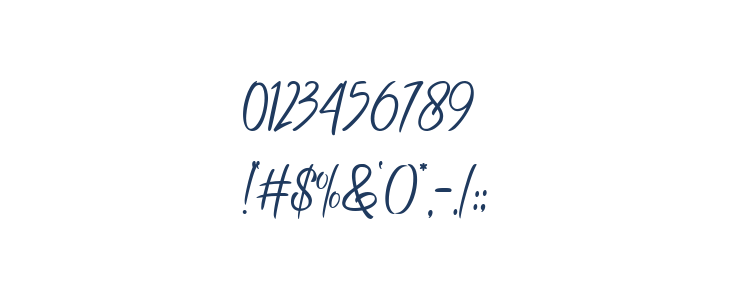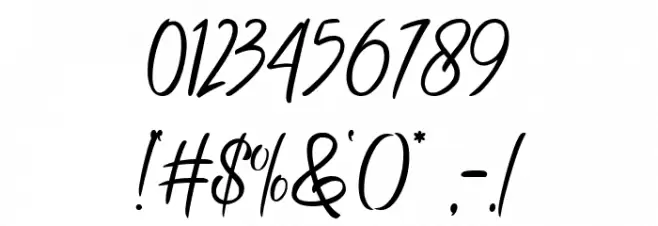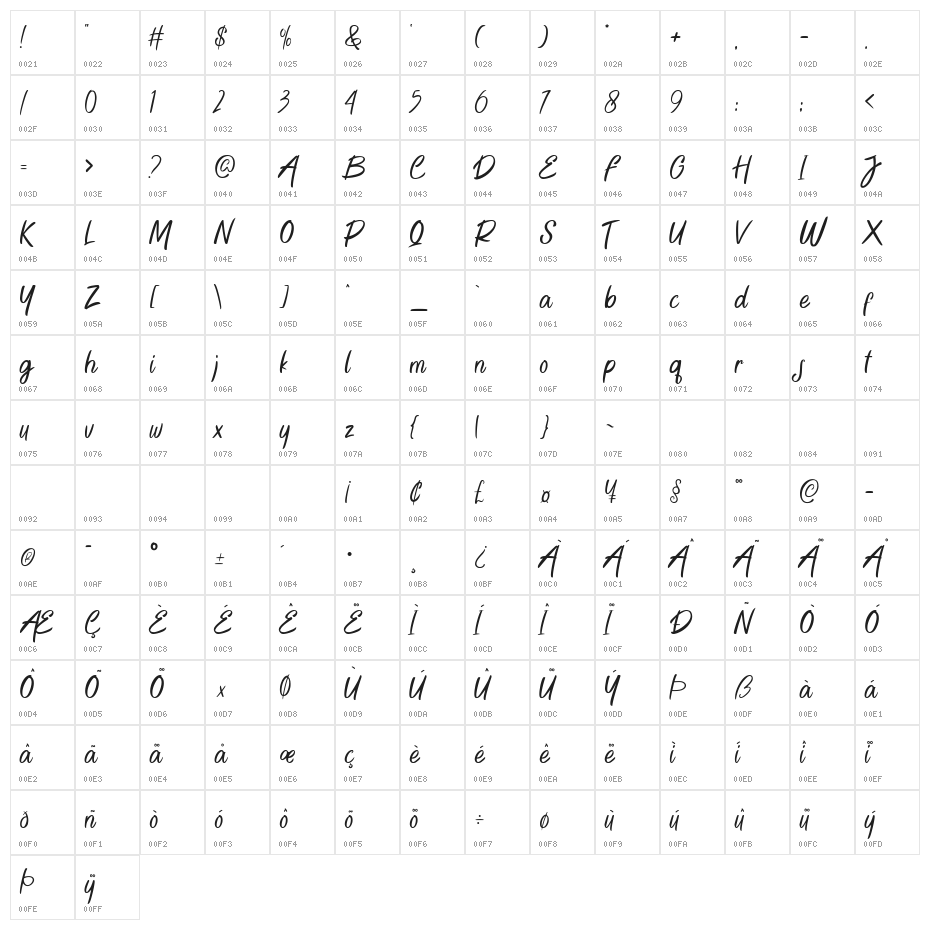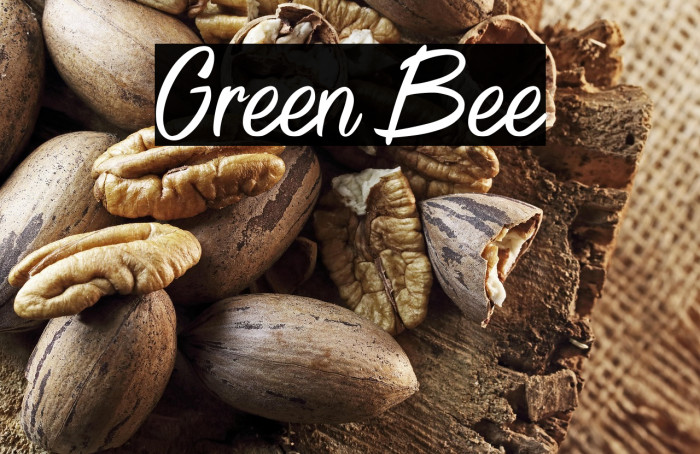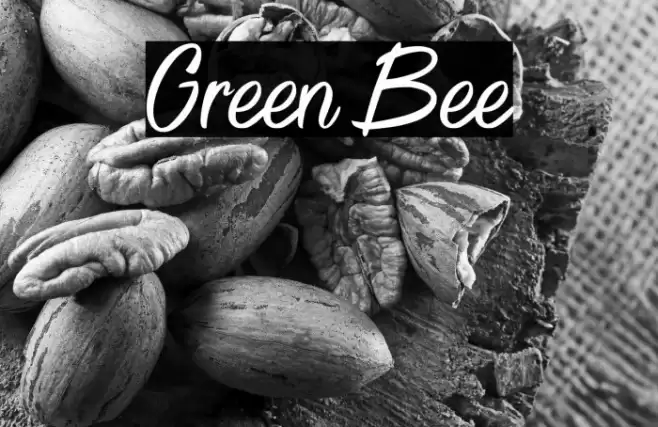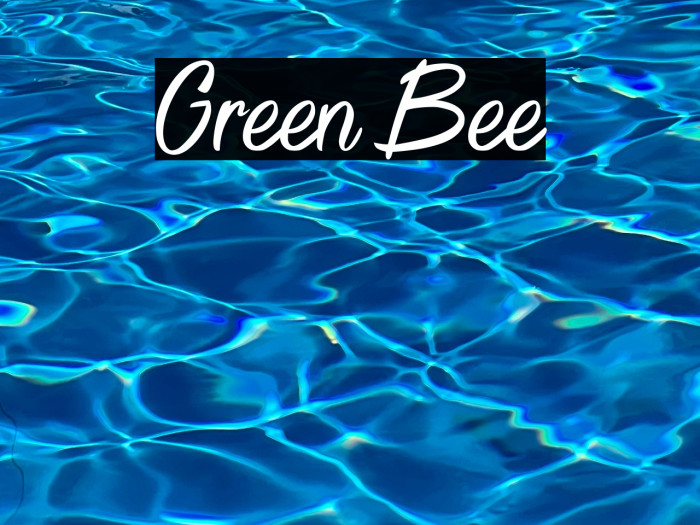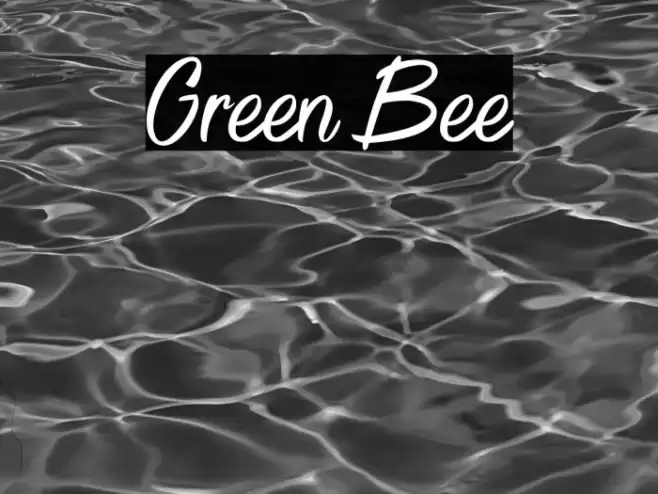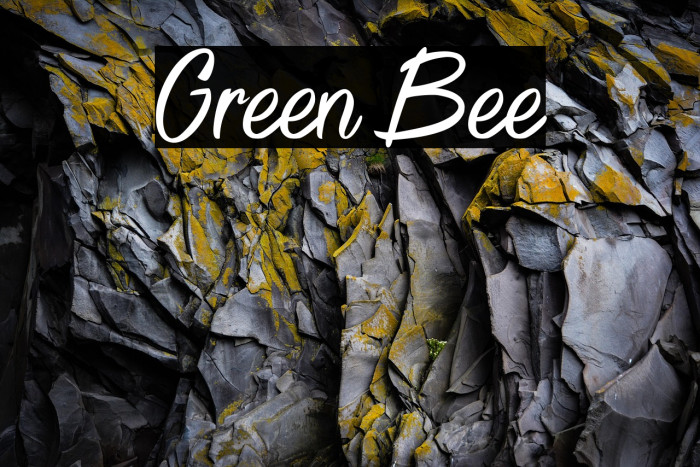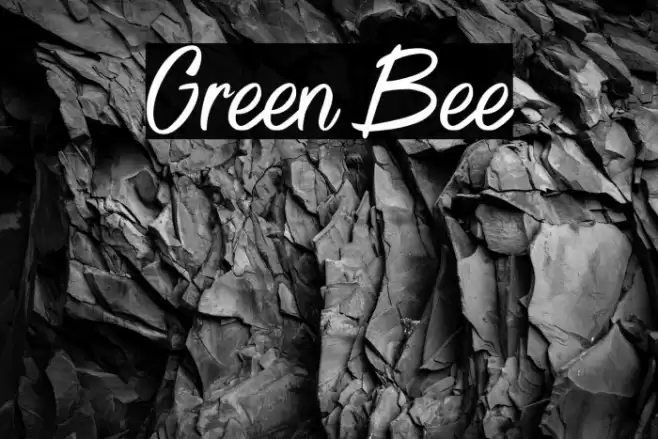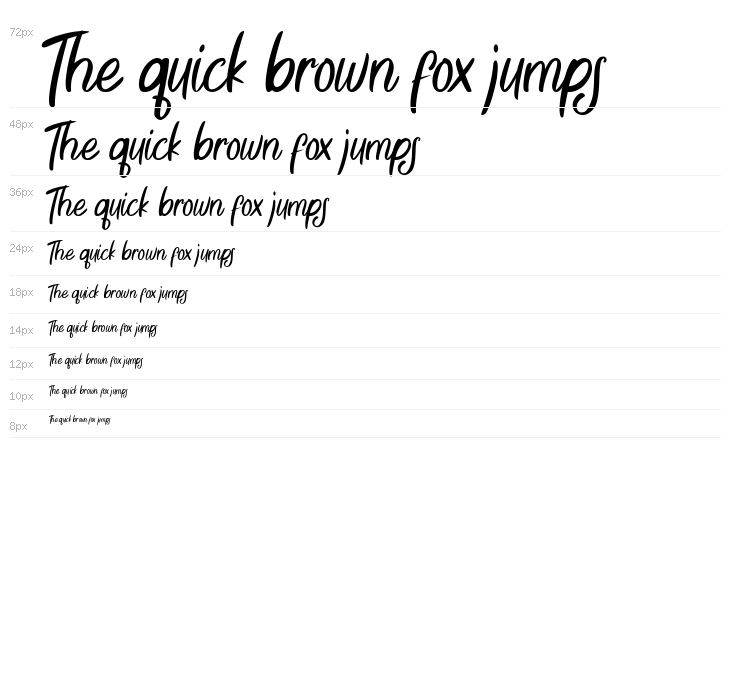
Green Bee Font
Green Bee Description
This font features a dynamic and energetic script style, characterized by its fluid, cursive strokes and a sense of movement. The uppercase letters are bold and slightly slanted, giving a sense of urgency and flair. The lowercase letters maintain a consistent flow, with some letters featuring unique loops and swashes that add to its decorative nature. The numerals are clear and maintain the same cursive style, ensuring readability while keeping the playful aesthetic. Special characters are well-integrated, maintaining the overall style and ensuring versatility in various design contexts.